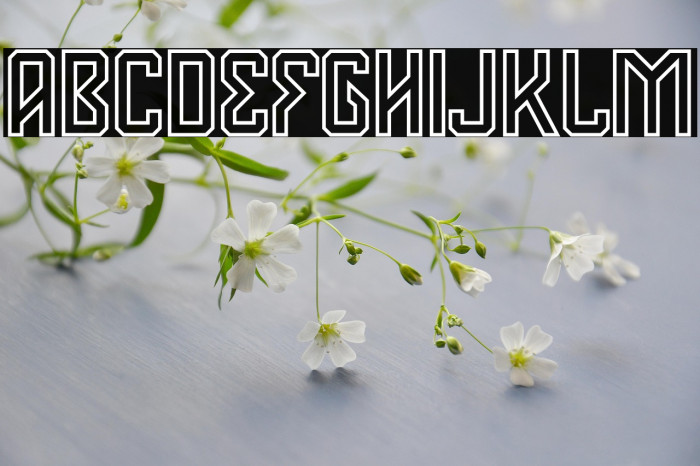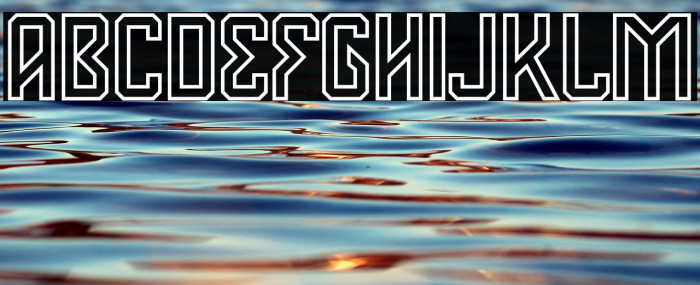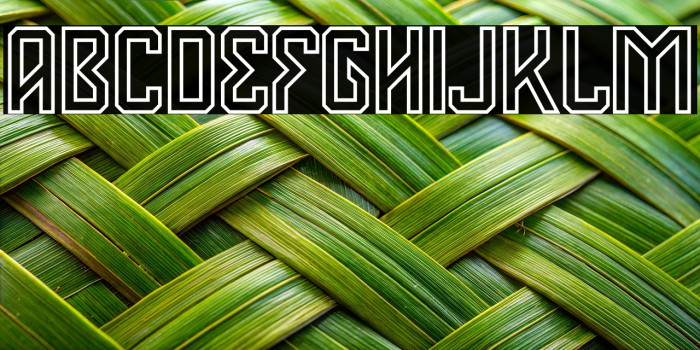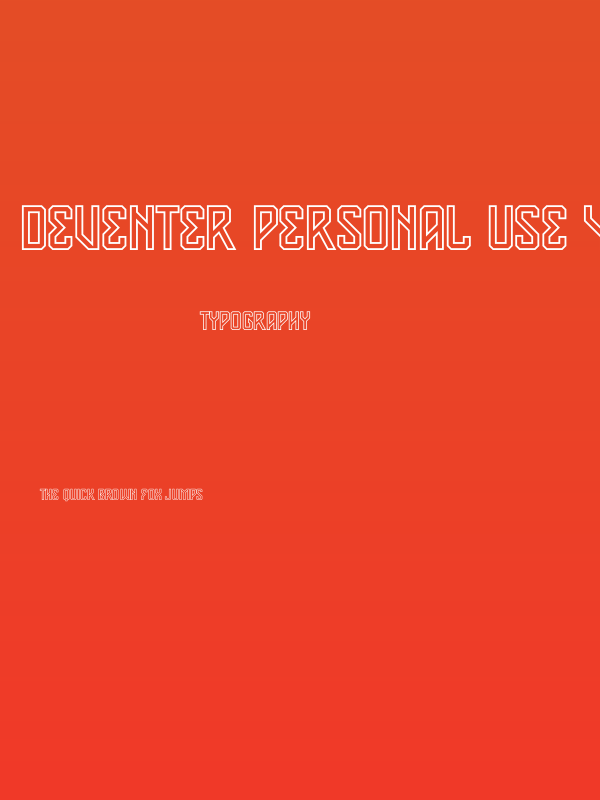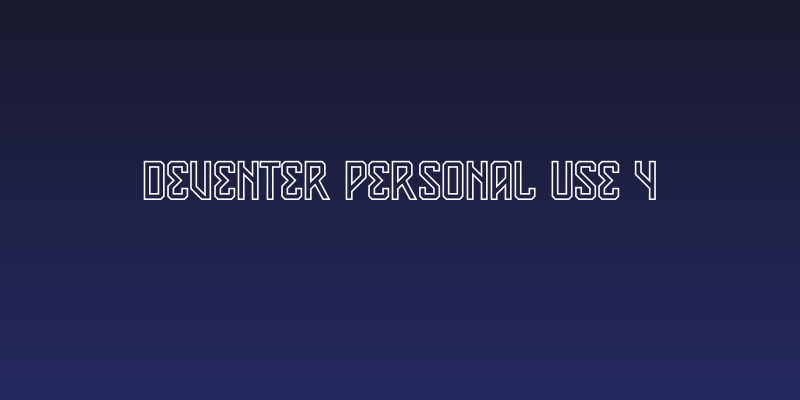
Deventer PERSONAL USE 4 Font
Deventer PERSONAL USE 4 Description
This font features a bold, geometric design with a distinct outline style that gives it a modern and futuristic appearance. The characters are constructed with sharp angles and clean lines, creating a sense of precision and clarity. The uppercase letters are uniform in height, while the numbers and special characters maintain the same stylistic approach, ensuring consistency across all elements. The font's unique structure makes it stand out, making it ideal for attention-grabbing designs.